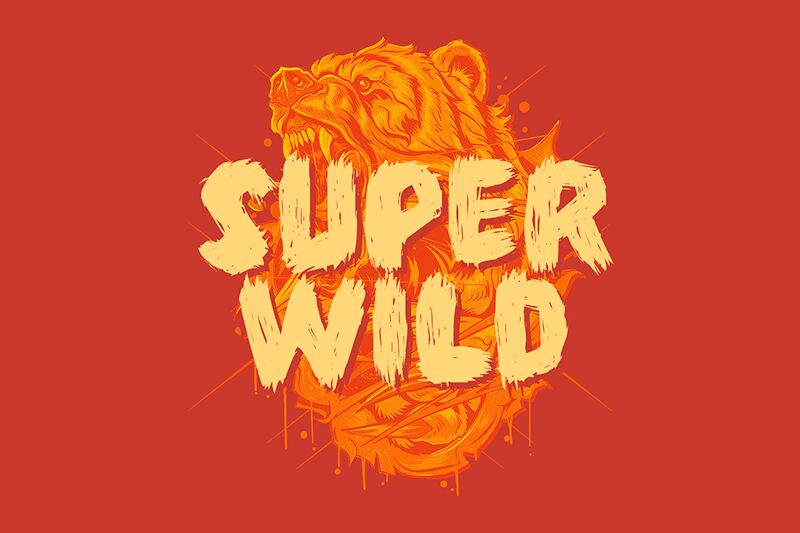
Super Wild
Super Wild font by fsuarez913 is a bold and expressive brush script, characterized by its wild, organic strokes and rough-hewn texture. Each letter is unique with varying line widths and pressure, creating a dynamic and energetic feel. Its irregular and spontaneous nature adds authenticity and personality making it perfect for designs that require a raw, edgy, hand-written aesthetic.
This free brush font’s grunge texture increases its eccentricity as well as adaptability. Projects of nearly all kinds can benefit from Super Wild, including posters, book covers, packaging designs, slogans and quotes. Use it to title news articles; promote new video or film releases or games; print brand names on T-shirts; or write podcast/TV show titles. Other ideas include invites to Halloween events; logos for a juice brand focused on natural ingredients/free from preservatives etc., particularly those made with darker colors – black ink over grey paper would look especially striking! Social media influencers may find themselves enjoying using this expressive typeface both online (Instagram) & offline too!